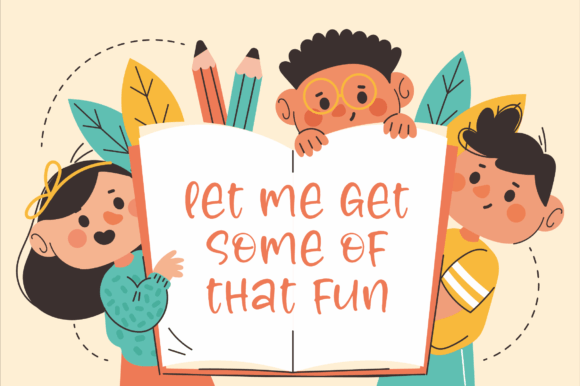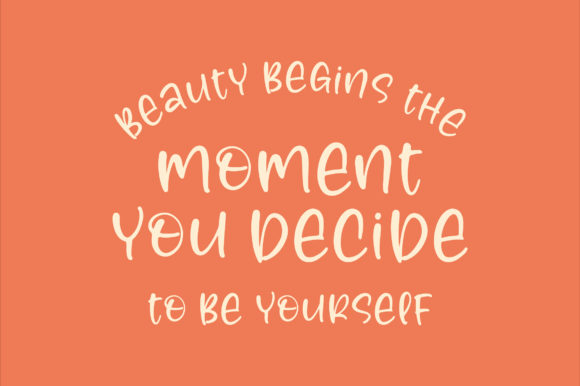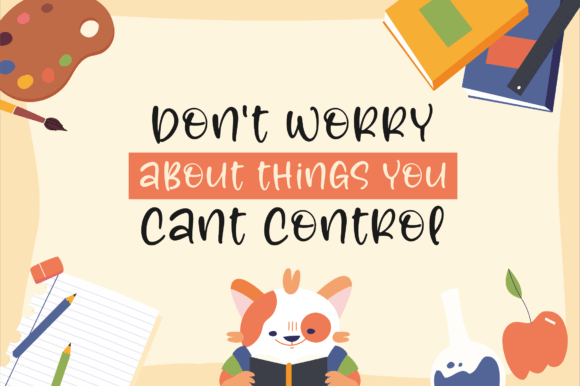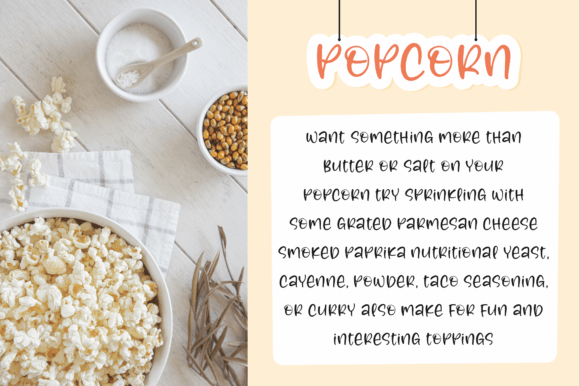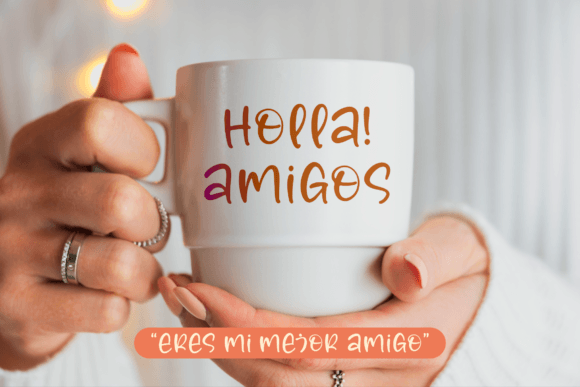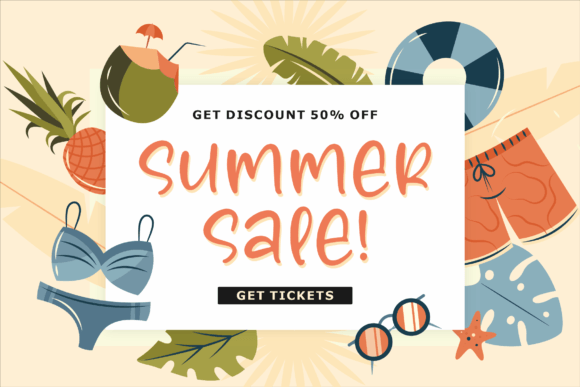
Introducing Canbera Grozny: The Ultimate Handwritten Font for Creative Projects
Are you a designer or crafter looking for a unique and beautiful handwritten font to elevate your projects? Look no further than Canbera Grozny, a stunning script font that is perfect for a wide range of applications. From logos and branding projects to homeware designs, product packaging, and more, Canbera Grozny is the ideal choice for anyone seeking a touch of elegance and sophistication.
What is Canbera Grozny?
Canbera Grozny is a carefully crafted handwritten font that exudes a sense of warmth and personality. Its unique letterforms and flowing connections make it perfect for creating beautiful and eye-catching designs that stand out from the crowd. Whether you’re working on a logo, a poster, or a product label, Canbera Grozny is sure to add a touch of magic to your project.
What Can I Use Canbera Grozny For?
The versatility of Canbera Grozny is one of its standout features. This amazing font can be used for a wide range of projects, including:
- Logos and branding projects: Create a lasting impression with a custom logo that showcases your brand’s personality.
- Homeware designs: Add a touch of elegance to your home decor with Canbera Grozny’s beautiful script.
- Product packaging: Make your products stand out on store shelves with eye-catching labels and packaging.
- Mugs, quotes, posters, shopping bags, t-shirts, and more: Canbera Grozny is perfect for any project that needs a beautiful script taste.
- Book covers, name cards, invitation cards, greeting cards, and labels: Add a touch of sophistication to your stationery and publishing projects.
- Photography and watermark: Use Canbera Grozny to add a professional touch to your photos and watermark.
- Special events: Create stunning invitations, programs, and other materials for weddings, parties, and other special occasions.
Why Choose Canbera Grozny?
So why choose Canbera Grozny over other fonts? Here are just a few reasons:
- Unique and elegant design: Canbera Grozny’s beautiful script is sure to turn heads.
- Highly versatile: This font can be used for a wide range of projects, from logos to product packaging.
- Easy to read: Despite its elegant design, Canbera Grozny is highly legible, making it perfect for body text and headlines.
- Scalable: Canbera Grozny looks great at any size, from small labels to large posters.
Tips for Using Canbera Grozny
To get the most out of Canbera Grozny, here are a few tips:
- Use it sparingly: Canbera Grozny is a beautiful font, but it can be overwhelming if overused. Use it for headlines, titles, and accents to add visual interest.
- Experiment with colors: Canbera Grozny looks great in a variety of colors, from bold and bright to soft and pastel.
- Pair it with other fonts: Canbera Grozny pairs well with a range of other fonts, from serif and sans serif to script and display.
In conclusion, Canbera Grozny is a stunning handwritten font that is perfect for designers and crafters looking to add a touch of elegance and sophistication to their projects. With its unique design, versatility, and ease of use, Canbera Grozny is sure to become a favorite in your font collection. So why wait? Download Canbera Grozny today and start creating beautiful projects that stand out from the crowd!